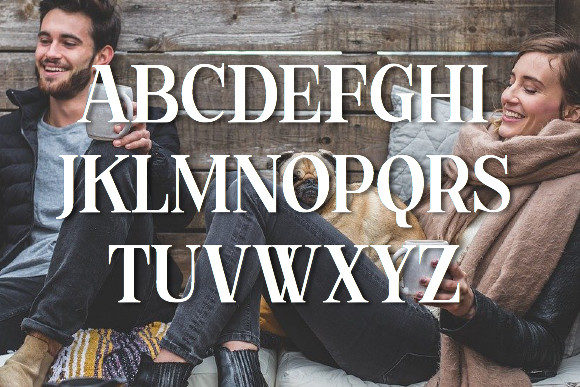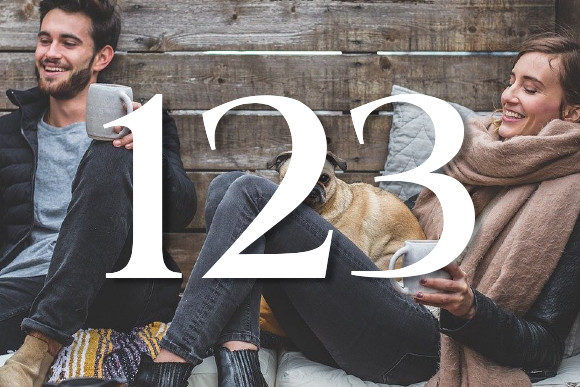
The Broken Heart: A Designer’s New Best Friend
I still remember the project like it was yesterday. I was working on a branding campaign for a new coffee shop, and I was determined to create a logo that would make their competitors green with envy. But, as I was scrolling through font after font, I just couldn’t find the right one. That was until I stumbled upon the Broken Hearts Font. It was love at first sight! 💕
A Bold and Elegant Serif Font
The Broken Hearts Font is a bold and elegant serif font that has quickly become a staple in my design toolkit. Its classic look makes it perfect for any branding project, from logos and t-shirt printing to creative products and more. The font’s unique character and sophisticated style make it ideal for designers, crafters, and creative hobbyists looking to add a touch of elegance to their work.
- ✨ Elegant and sophisticated design
- 💯 Perfect for logos, branding, and creative projects
- 🎨 Great for use in both digital and print materials
While the Broken Hearts Font is an amazing addition to any design project, there are a few things to keep in mind. 🤔 For example, some of the glyphs and special characters can be a bit finicky, requiring a bit of extra effort to get just right. ⚠️ Additionally, the font may not be the best choice for body text, as it’s a bit on the bold side.
The Story Behind Broken Hearts Font
The Broken Hearts Font was designed by a team of creatives who wanted to create a font that would evoke the feeling of romance and elegance. Inspired by classic serif fonts, they added their own unique twist to create a truly one-of-a-kind design. 💌
Q: What is the Broken Hearts Font?
A: The Broken Hearts Font is a bold and elegant serif font designed for use in a variety of creative projects.
Q: Is the Broken Hearts Font suitable for body text?
A: While the Broken Hearts Font is highly legible, it’s a bit on the bold side, making it better suited for headlines and titles rather than body text.
Q: Does the Broken Hearts Font come with OpenType features?
A: Yes, the Broken Hearts Font includes a range of OpenType features, including glyphs, stylistic alternates, and ligatures.